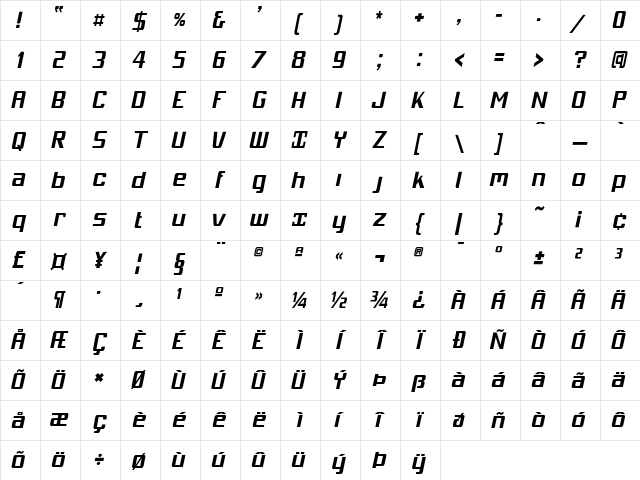
Complete Mobitale Cnd Black Italic glyph index. Displaying only characters natively supported by Mobitale Cnd Black Italic font.
Mobitale Cnd is a composed and adaptable typeface that performs quietly and consistently across a wide range of design contexts. The slanted form adds forward momentum and visual energy.
Pro Tip: Use Mobitale Cnd for emphasis, pull quotes, and subheadings where its slanted energy can add rhythm to the layout.